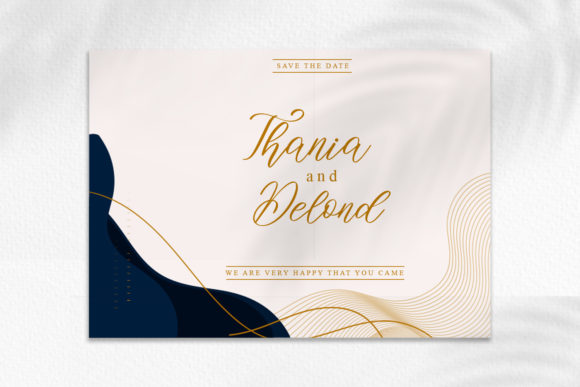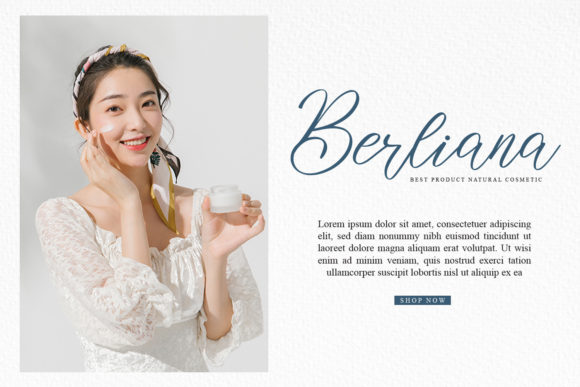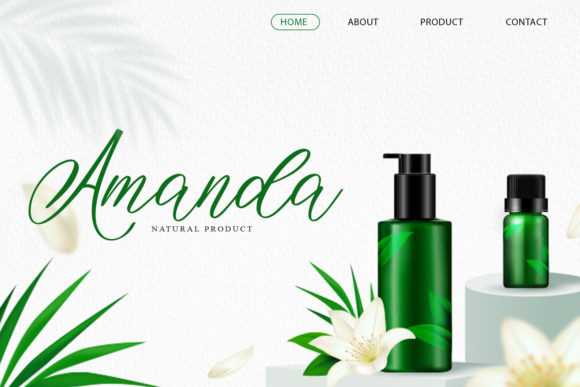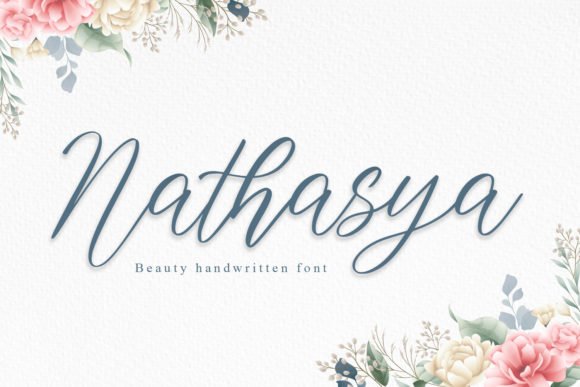
Introduction to Nathasya Font
Nathasya is an exquisite handwritten font, masterfully designed to become a true favorite.
It maintains its classy calligraphic influences while feeling contemporary and fresh Nathasya is PUA encoded which means you can access all glyphs and swashes with ease.